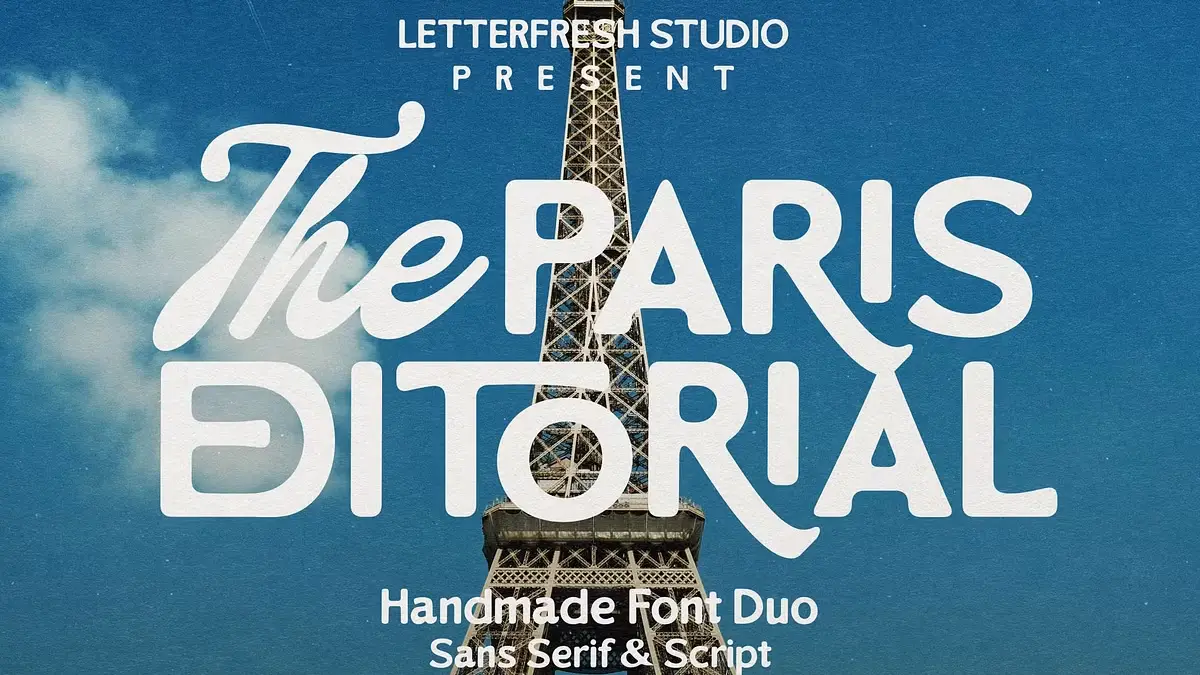
It’s no secret that typography dictates a brand’s voice before a consumer reads a single word. The Paris Editorial font duo creates a specific auditory hallucination for the viewer. It whispers rather than shouts. Designers want typefaces that look credible without feeling cold. Letter Fresh provides this solution. This handmade sans-serif and script font duo offers a distinct advantage in the current design landscape. We categorize this aesthetic advantage as “Visual Empathy.” This article analyzes the Paris Editorial font duo through this new framework. We will examine how this specific playful combination drives engagement.
Why Does Handmade Typography Matter More Than Ever in Digital Design?
Digital homogeneity creates opportunity. Consider how many brands now look identical—same grotesques, same geometric sans serifs, same corporate neutrality. The Paris Editorial duo disrupts this pattern through what we might call Dual-Voice Typography: the strategic deployment of contrasting yet harmonious typefaces that establish both authority and approachability simultaneously.
The rounded sans serif delivers structural integrity. Meanwhile, the script component introduces human variability. This combination solves a problem many designers face daily: how to appear professional without seeming distant.
The Architecture of Approachability
Letter Fresh built this duo on a specific principle. Call it Tactile Contrast Theory. The concept is simple: when you pair geometric structure with organic movement, you create cognitive resonance. Readers perceive both competence and warmth.
The Paris Editorial sans serif uses rounded terminals strategically. These aren’t purely decorative choices. Research in typography perception shows that rounded letterforms reduce perceived aggression while maintaining legibility. Consequently, the typeface communicates friendliness without sacrificing readability at small sizes.
The script component operates differently. It introduces rhythm and personality through varied stroke weights and natural connections. However, Letter Fresh maintained discipline here. This isn’t a wild calligraphic display face. It’s a functional script designed for real-world applications.
How Does the Paris Editorial Font Duo Actually Work in Practice?
Understanding application matters more than aesthetic appreciation. This duo excels across specific use cases that demand both distinction and clarity.
Product Packaging Applications
Product labels require instant communication. The Paris Editorial font duo solves the hierarchy problem elegantly. Deploy the sans serif for product names and functional information. Use the script for emotional messaging and brand storytelling. This creates visual separation that guides consumer attention naturally.
Artisanal food brands benefit particularly. The combination suggests craftsmanship without appearing pretentious. Beauty products gain sophistication through the script’s elegance while maintaining clarity through the sans-serif’s structure.
Social Media Content Strategy
Instagram and Pinterest prioritize visual impact. The Paris Editorial duo delivers what we call Scroll-Stop Typography: letterforms distinctive enough to halt mid-scroll browsing. The script’s flowing nature creates movement within static posts. Meanwhile, the sans serif anchors headlines and calls-to-action with bold clarity.
Brands targeting millennial and Gen Z audiences need authenticity markers. Handmade fonts signal genuine human effort. This duo provides that signal without appearing amateurish or unprofessional.
Logo Design Framework
Logo creation demands versatility. The Paris Editorial font pairing enables what design theorists call Adaptive Brand Voice: the ability to shift between formal and casual contexts while maintaining identity coherence.
Primary wordmarks can utilize the rounded sans serif exclusively for corporate applications. Then, introduce the script in customer-facing materials, packaging, and social content. This creates a brand system rather than a static identity.
What Technical Considerations Define Professional Font Duo Usage?
Typography selection requires more than aesthetic judgment. Technical execution determines whether designs succeed or fail in production environments.
File Format Compatibility
Letter Fresh provides both OTF and TTF formats. This matters significantly. OpenType features enable advanced typographic controls, including ligatures, alternates, and contextual substitutions. TrueType ensures compatibility across older systems and basic design software.
Professional designers should prioritize OTF files. These formats support expanded character sets and advanced features accessible through Adobe Illustrator’s Glyph Panel or Photoshop’s OpenType Character Panel. This access unlocks the full expressive potential of the Paris Editorial script font.